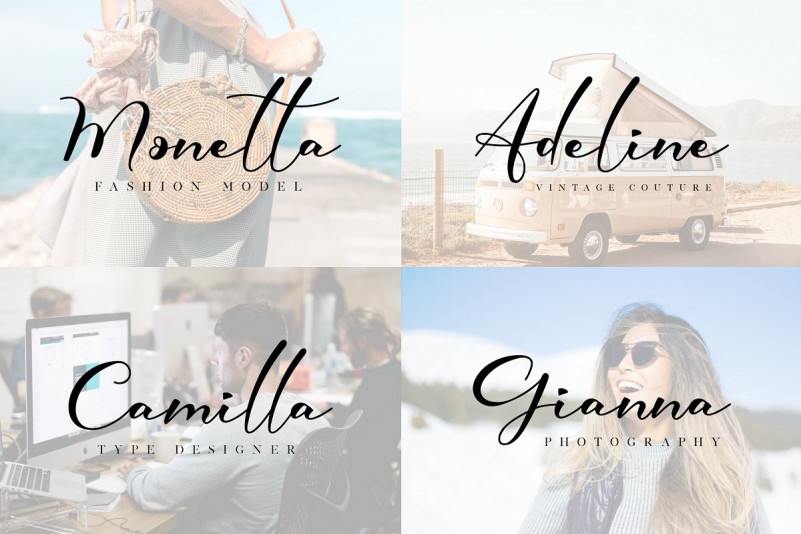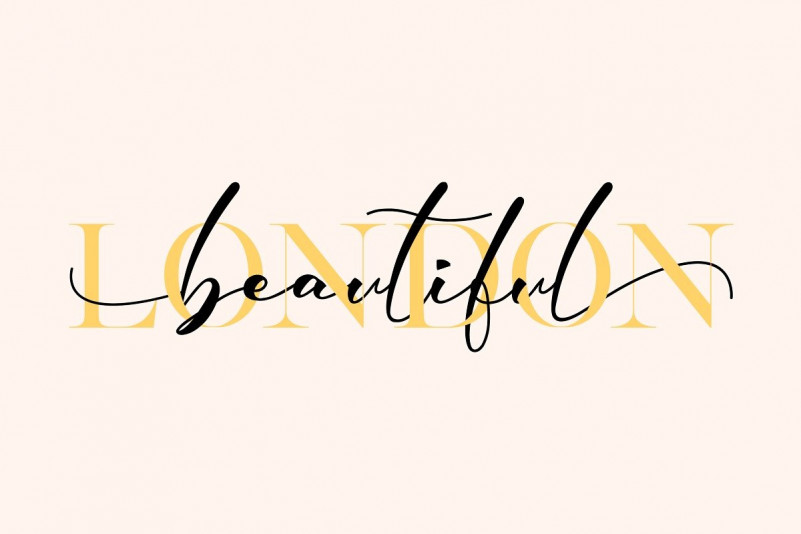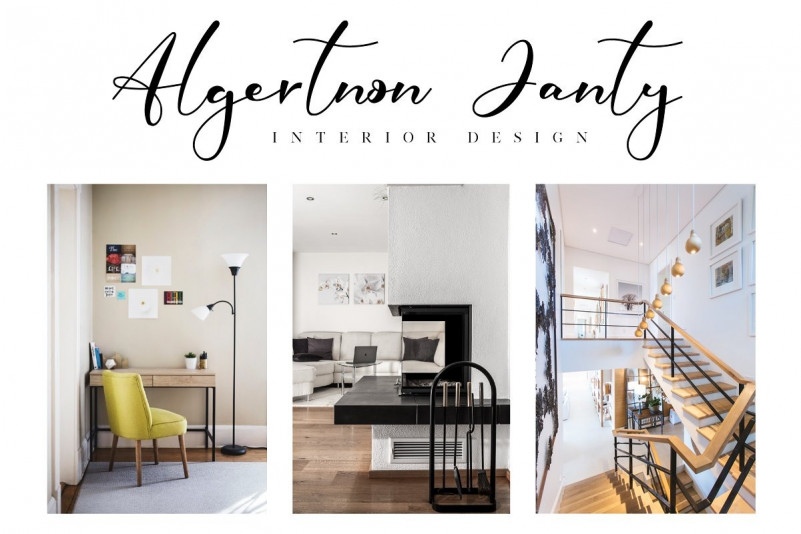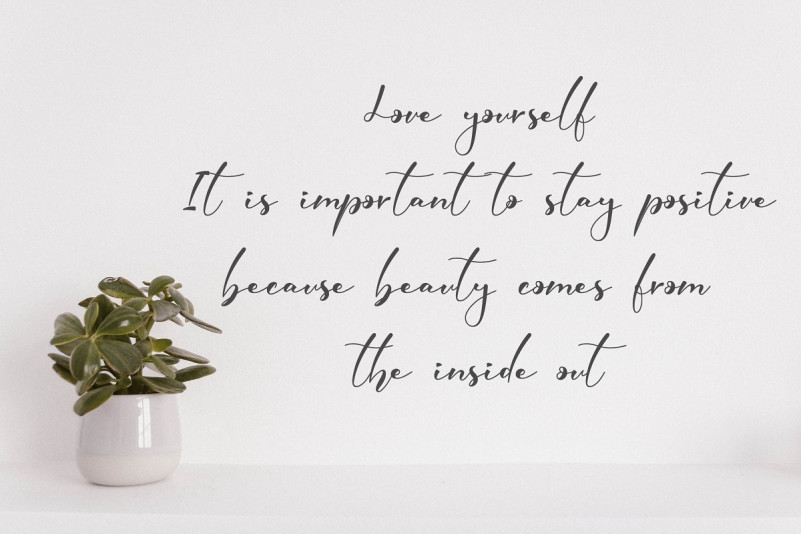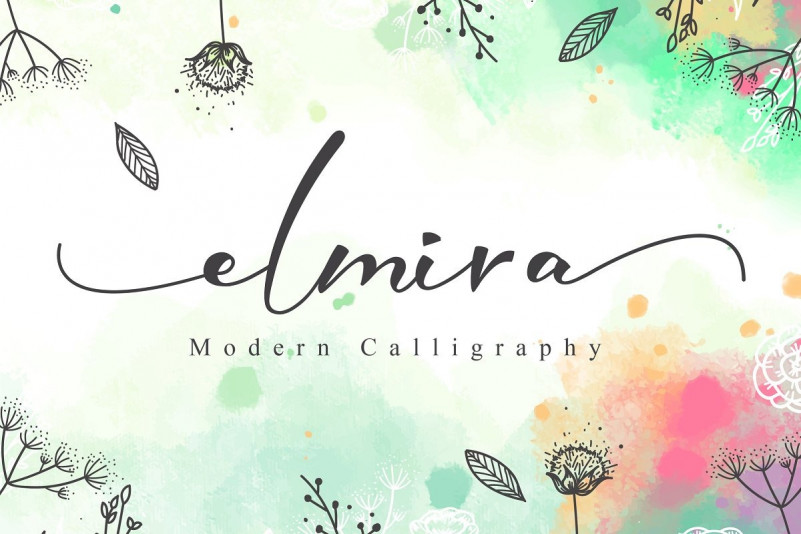
Elmira Script Font
Befonts introducing new modern calligraphy font “Elmira Font”. That is designed very skillfully and thoroughly so that they can be combined. This font is perfect for wedding postcards. Elmira Script is a beautiful script font with a fresh and contemporary twist. Get inspired by its unique charm! It is suitable for greeting cards, branding materials, business cards, quotes, posters, and more!